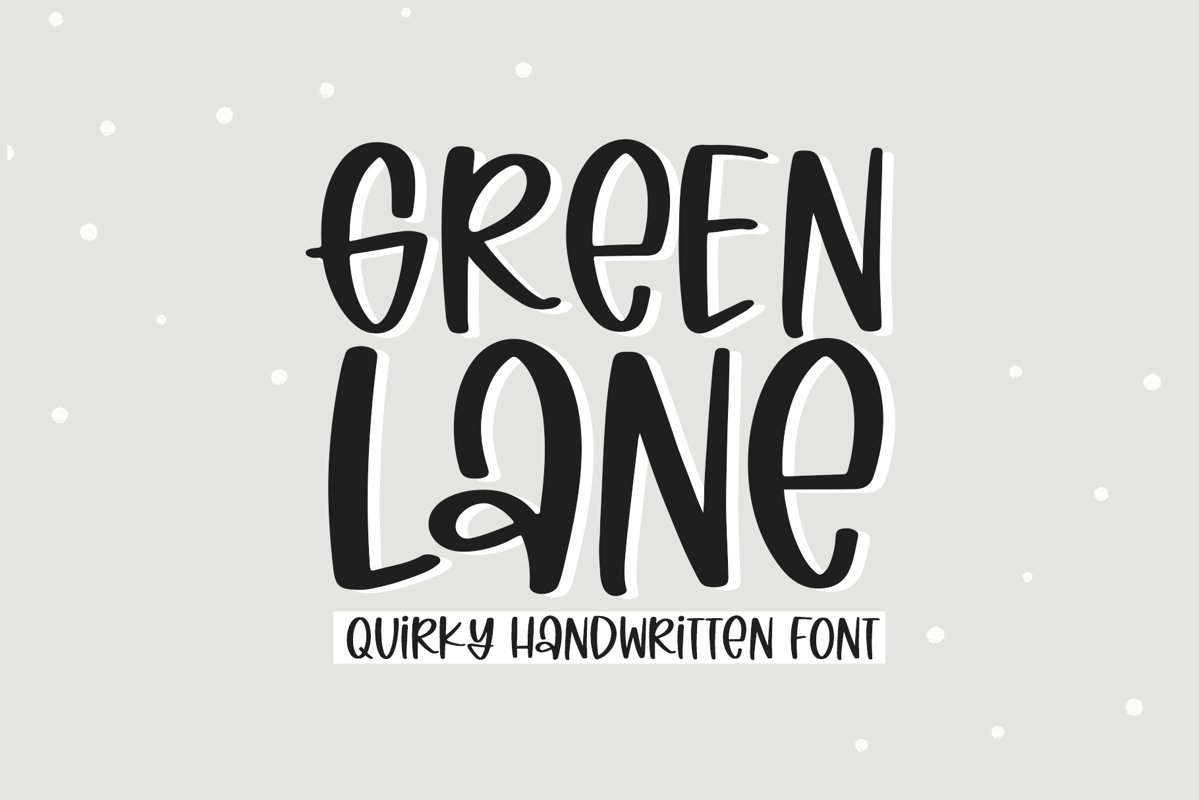
Green Lane is a fun and quirky handwritten font!
This font is perfect for quotes, shirt designs, websites, branding, children's designs, svg designs, blogs, logos, invitations and more!